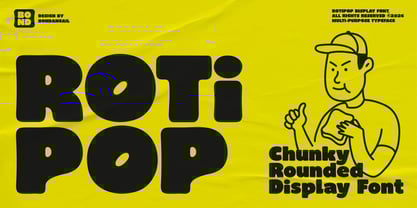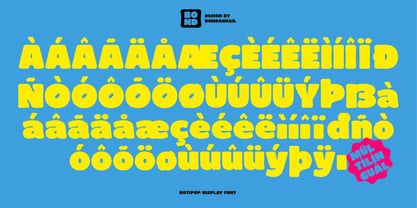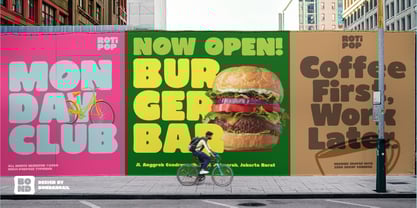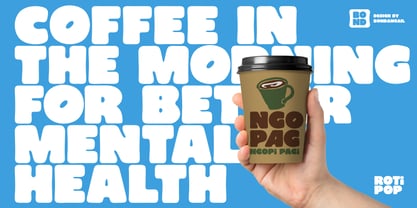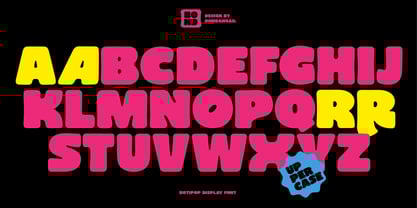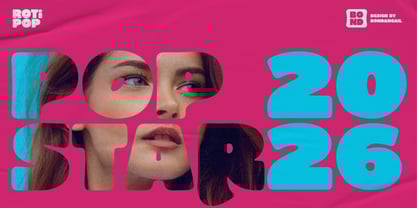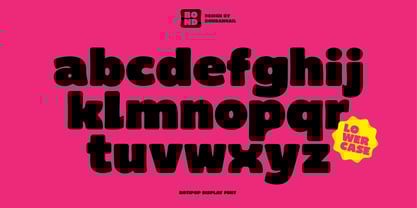
Rotipop
by BondanGail
The Rotipop Font Family was designed by Bondan Gail Saputro and published by BondanGail. Rotipop contains 1 styles. More about this family
Rotipop - The font that makes your designs irresistibly delicious bring the warmth and comfort of freshly baked bread to your next project with rotipop, a uniquely crafted rounded display typeface inspired by the soft, pillowy perfection of white bread slices. Every letter is designed with smooth, bubble-like contours and thick, uniform strokes that eliminate sharp edges, creating an instantly approachable and friendly aesthetic.